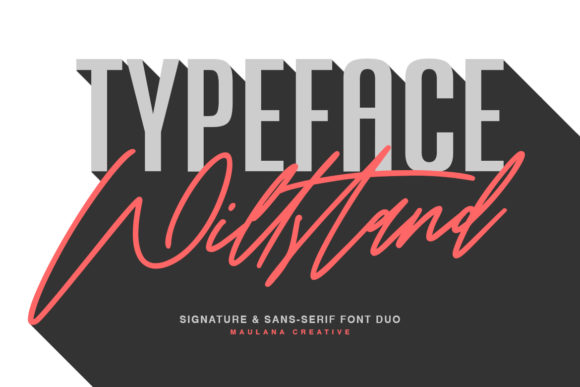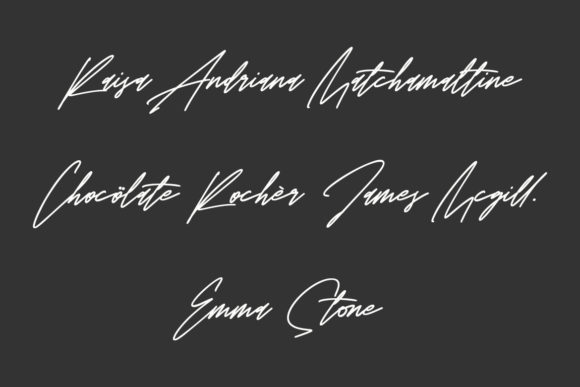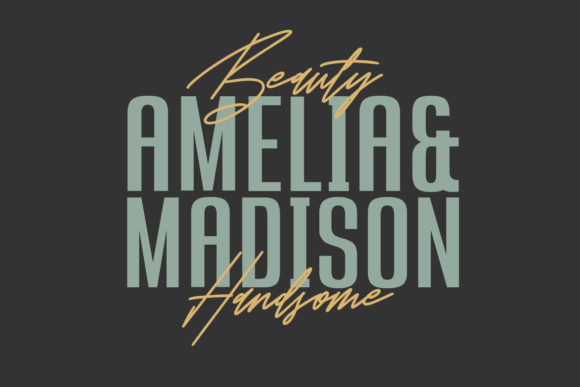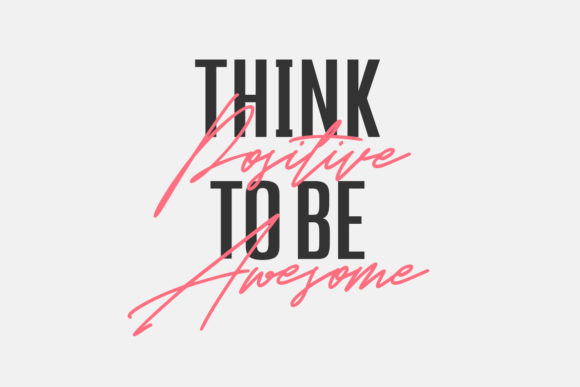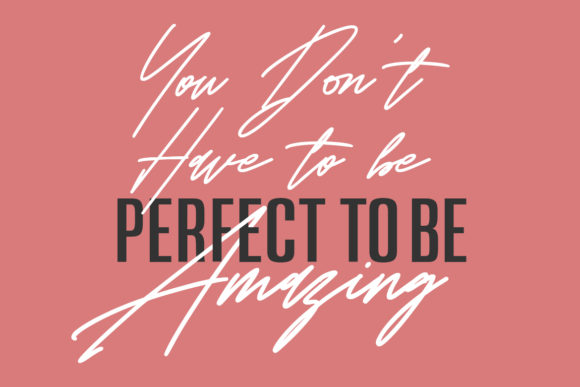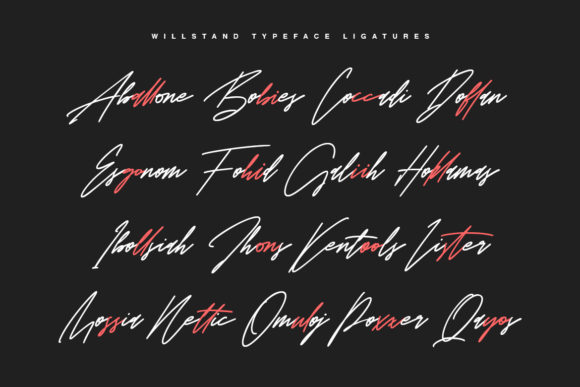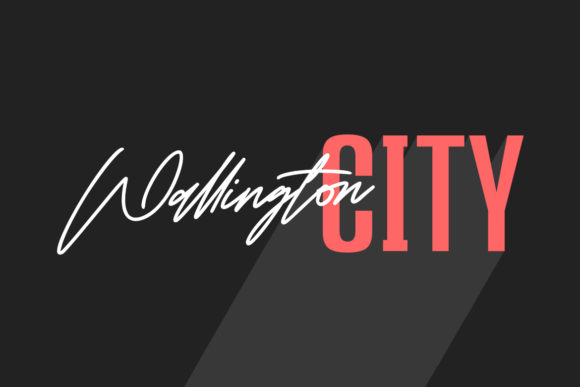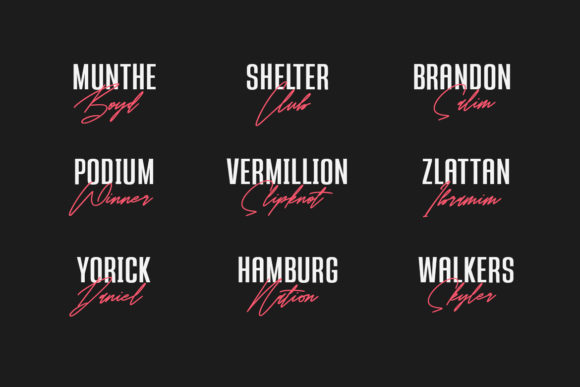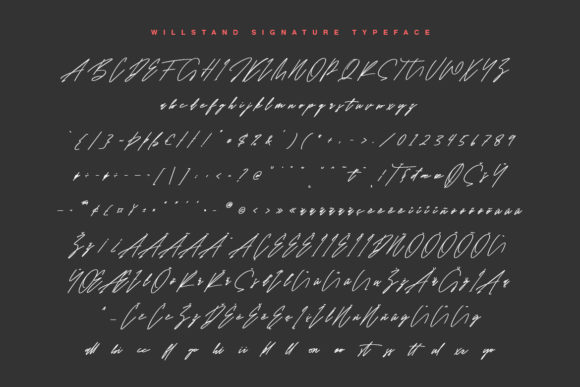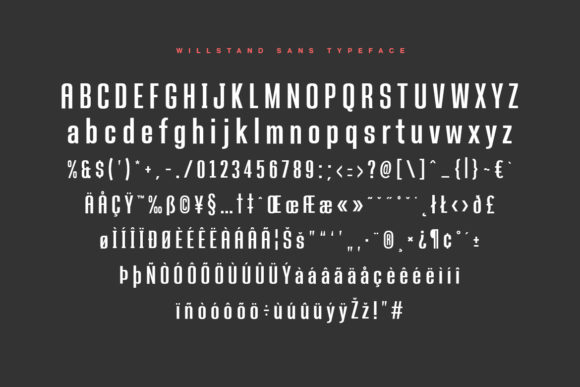
Willstand Duo Font
About Willstand Duo Font
Willstand Duo is a match made in heaven! It combines a beautiful script with a unique sans serif font. This versatility will appeal to a wide range of crafty ideas, from letterheads and titles, to stationery.